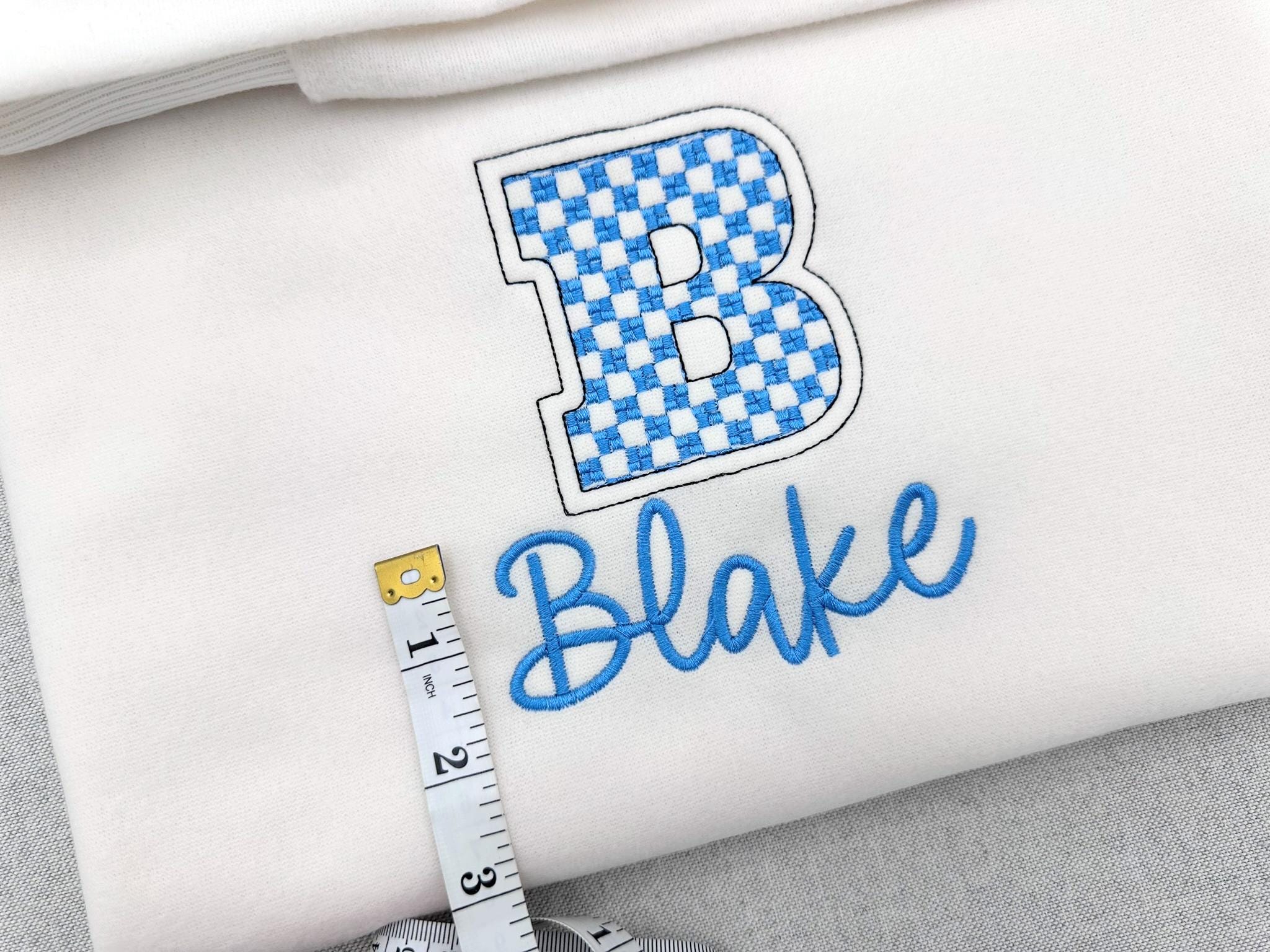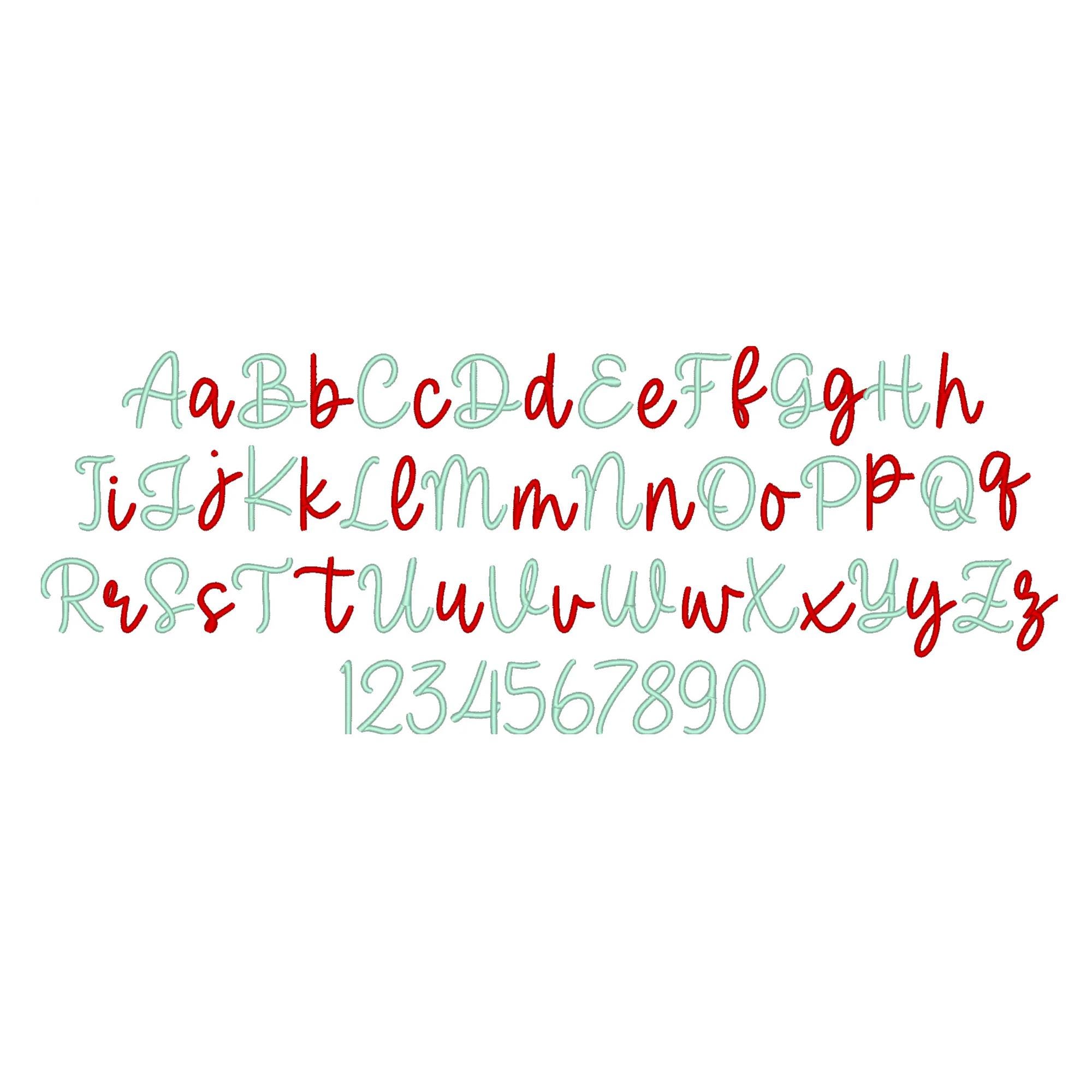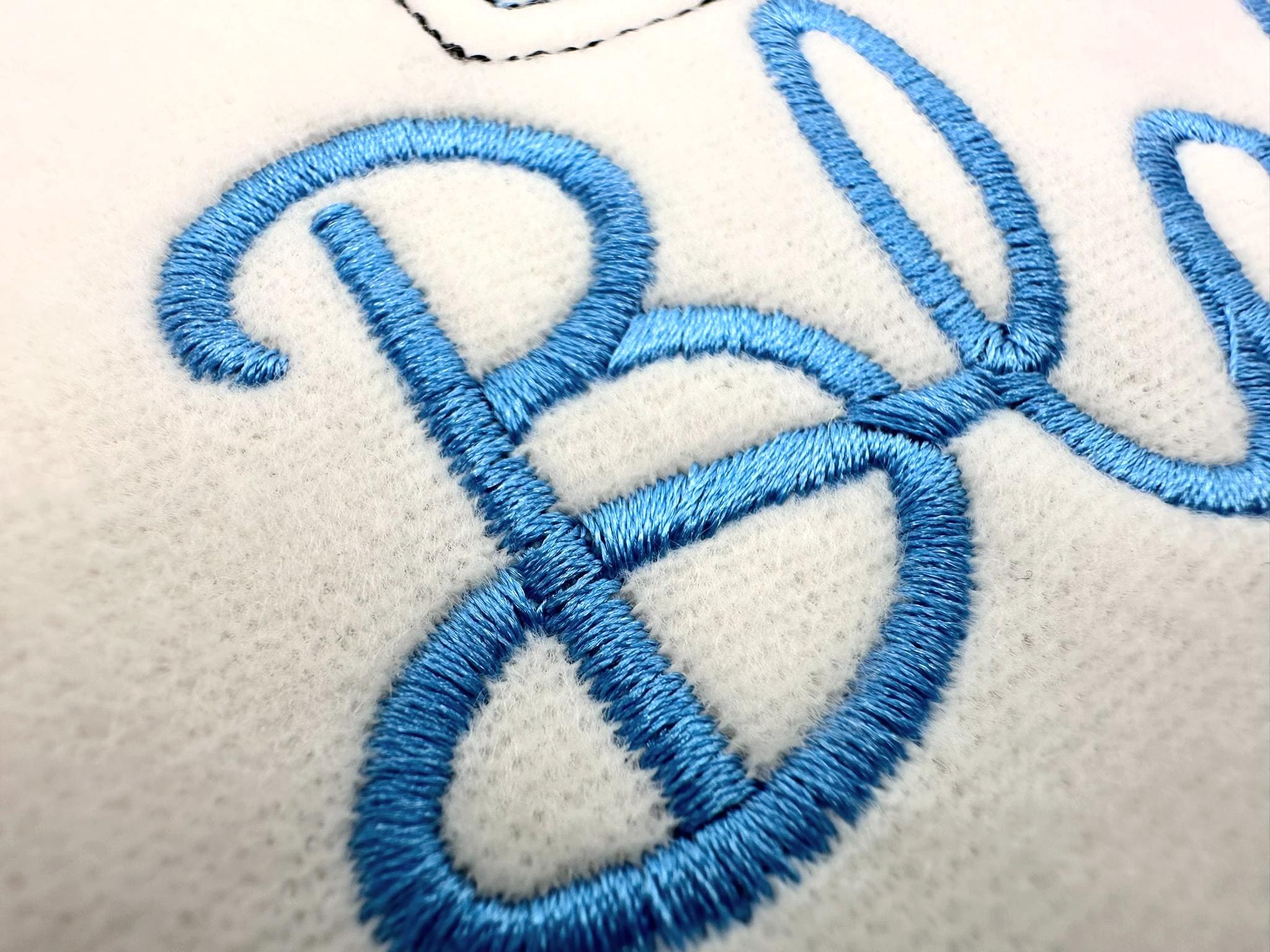
Set of 2 FONTS Big Double outline checkered Font and Sweatshirt script handwritten Font machine embroidery designs Alphabet Monogram
Included 2 fonts
* satin stitch handwritten script font
* checkered double outline Font
The checks are part of the design. This is a transparent font, and the background fabric looks through. Awesome effect!
Handwritten script Font
Checkered Font